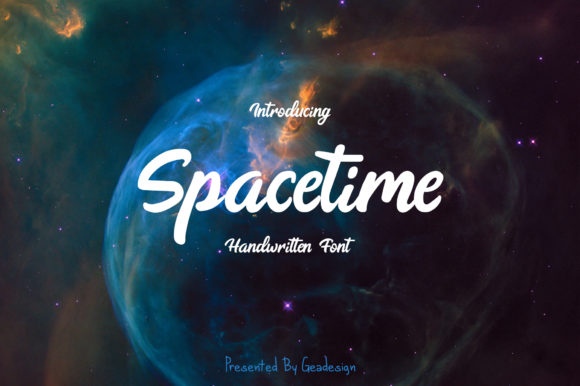
Spacetime Font
Spacetime Font is perfect for science fiction movie titles, futuristic tech branding, space exploration materials, scientific research presentations, astronomy publications, physics conference signage, cosmic documentary graphics, space agency communications, theoretical physics journals, and cutting-edge technology interfaces.
Spacetime Font is exciting because it captures the infinite mystery and scientific wonder of the cosmos, creating a typeface that embodies the elegance of physics, the beauty of astronomical discovery, and the limitless potential of space exploration. This font brings cosmic sophistication and scientific precision to any project, making it ideal for organizations that want to convey innovation, intellectual curiosity, and the awe-inspiring nature of scientific advancement. Its futuristic character and cosmic appeal create an atmosphere of scientific wonder that resonates with audiences fascinated by space and theoretical physics.
Spacetime Font family includes light, regular, medium, bold, and black weights, each available in roman and italic styles with scientific symbols and cosmic ornaments, providing designers with comprehensive tools for creating scientific typography and space-age brand experiences rooted in astronomical wonder.
This remarkable cosmic typeface combines scientific aesthetics with futuristic design principles, making Spacetime Font Free Download an outstanding choice for projects celebrating space exploration and scientific discovery. The font's precisely crafted letterforms feature cosmic proportions and scientific styling that reflect the mathematical beauty of the universe and the precision required for space travel.
Whether you're designing space agency branding, scientific publication materials, or futuristic technology interfaces, Spacetime Font delivers unmatched cosmic authenticity and scientific credibility. The font excels in both large-scale observatory applications and detailed scientific documentation where cosmic wonder and scientific accuracy create transformative educational experiences.
Scientific professionals choose Spacetime Font for its ability to instantly communicate cosmic scale and scientific precision while creating intellectual connections with audiences seeking understanding of the universe. The font's cosmic character makes it particularly effective for planetariums, space centers, and astronomical research institutions.
Each character reflects the mathematical elegance of cosmic phenomena, featuring precise construction and infinite proportions that create typography as vast and beautiful as galaxies, black holes, and the expanding universe itself.